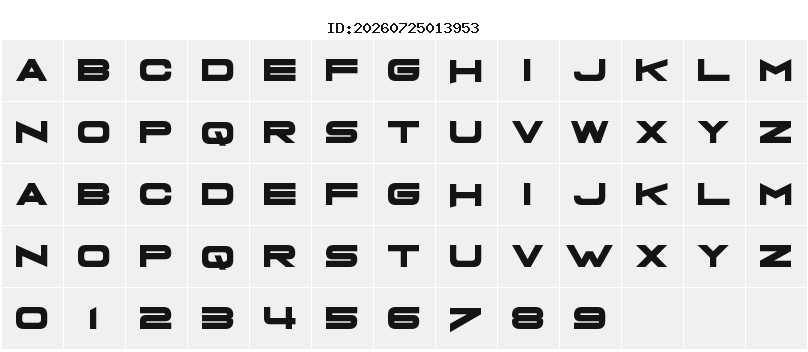
Grandma's Television Preview
• Font Name: Grandma's Television
• Full Font Name: Grandma's Television
About Grandma's Television.otf
Grandma's Television.otf is a modern, elegant sans-serif font designed for ultimate readability and visual harmony. Perfect for branding, headlines, web design, and print materials.